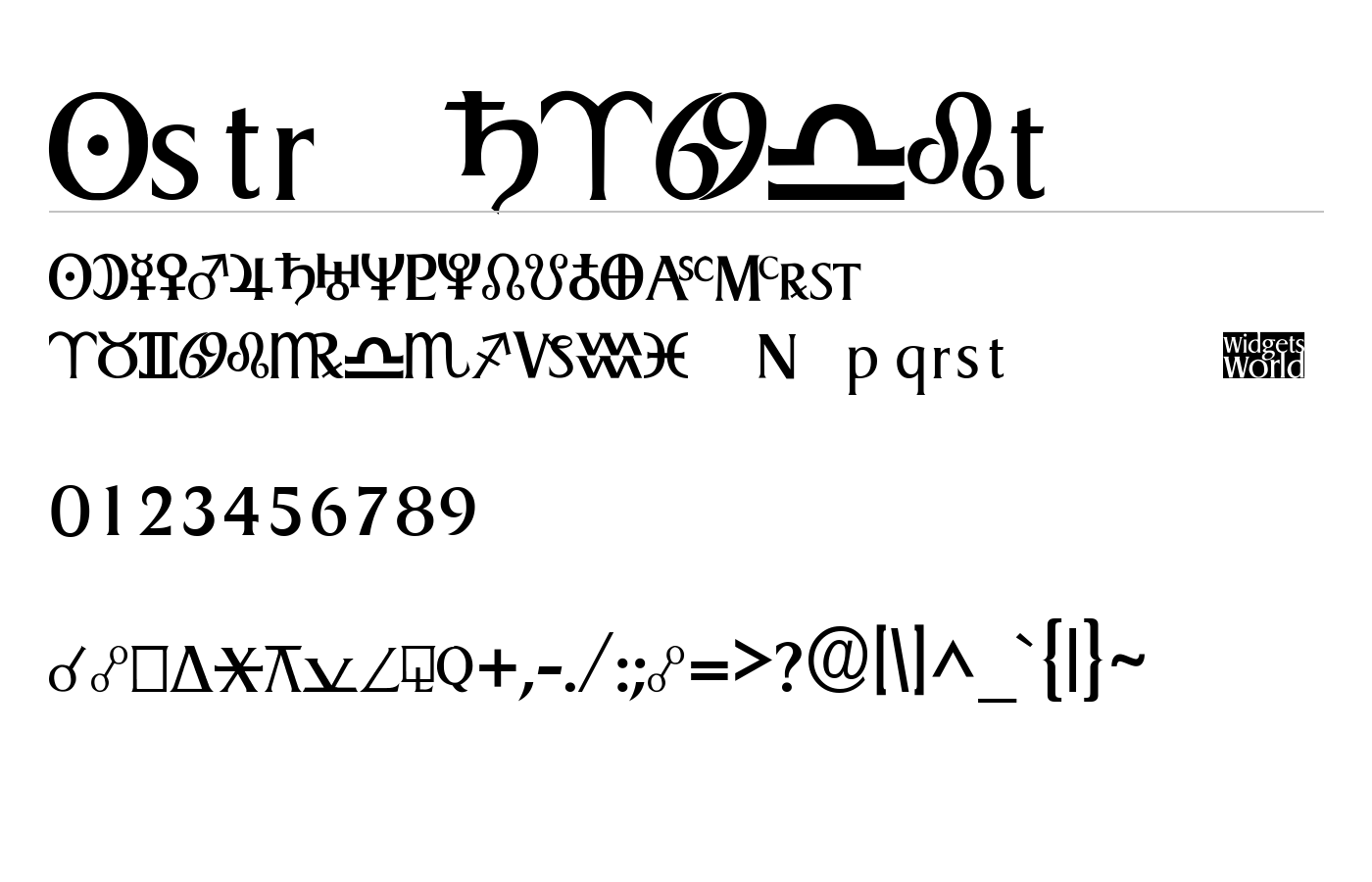
AstroGadget is a distinctive serif font with a vintage, almost mystical feel, characterized by its bold weight and high contrast between thick and thin strokes. The unusual and artistic letterforms, along with its mix of traditional serif elements and unique, decorative shapes, make it ideal for creative headlines, logos, and designs that want to evoke a sense of mystery or cosmic wonder. Its strong personality and elegant details suit branding, editorial, or poster work aiming for a striking and memorable impact.
AstroGadget Font
About AstroGadget Font